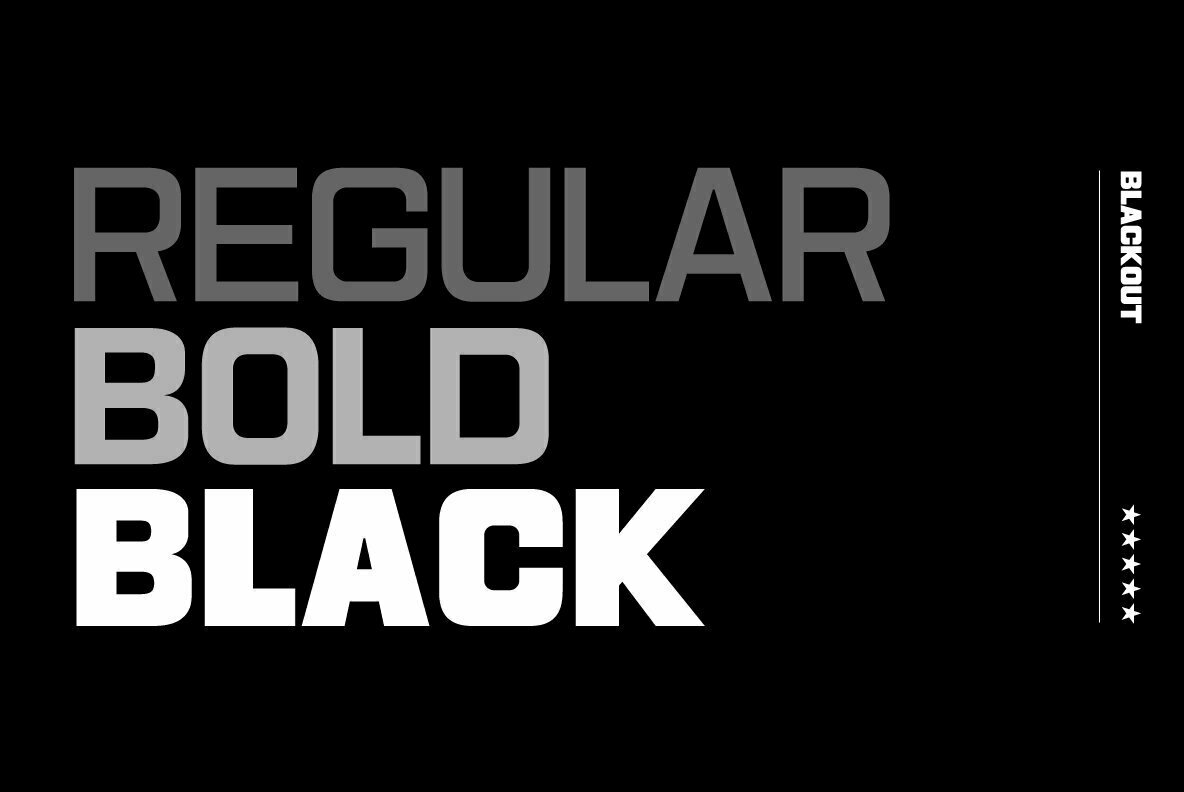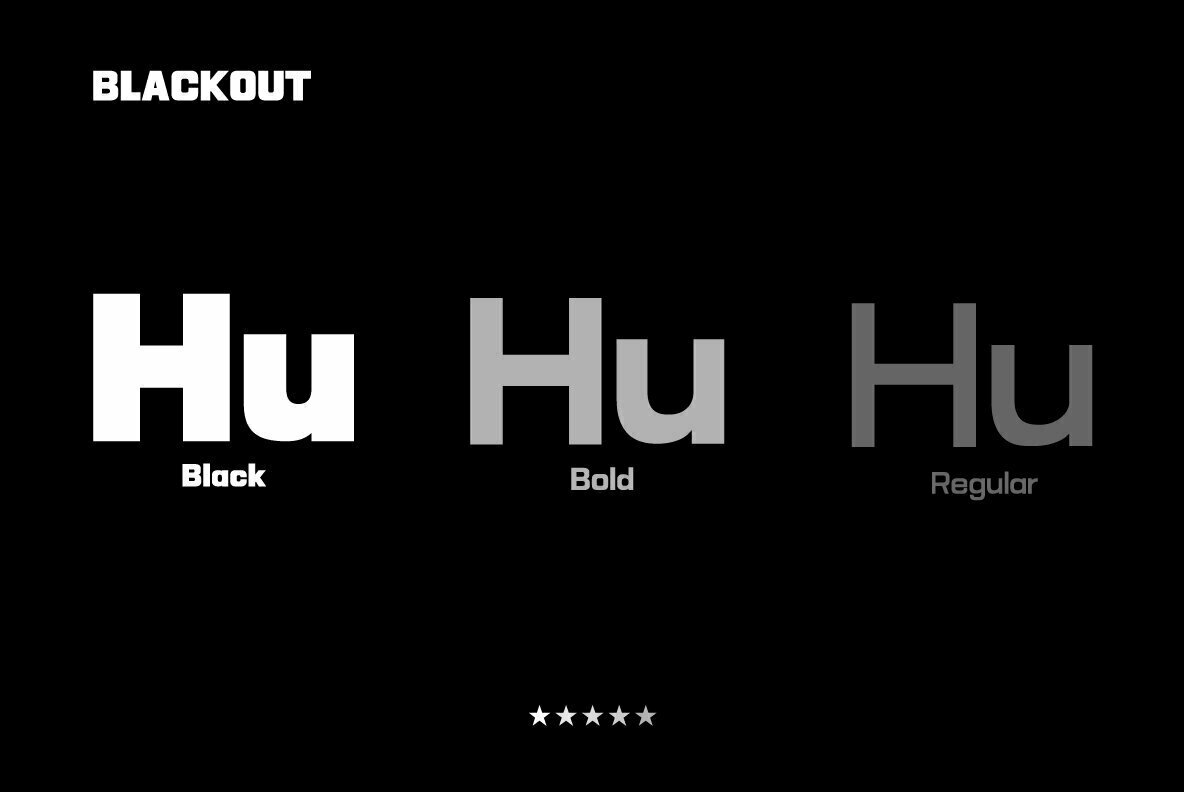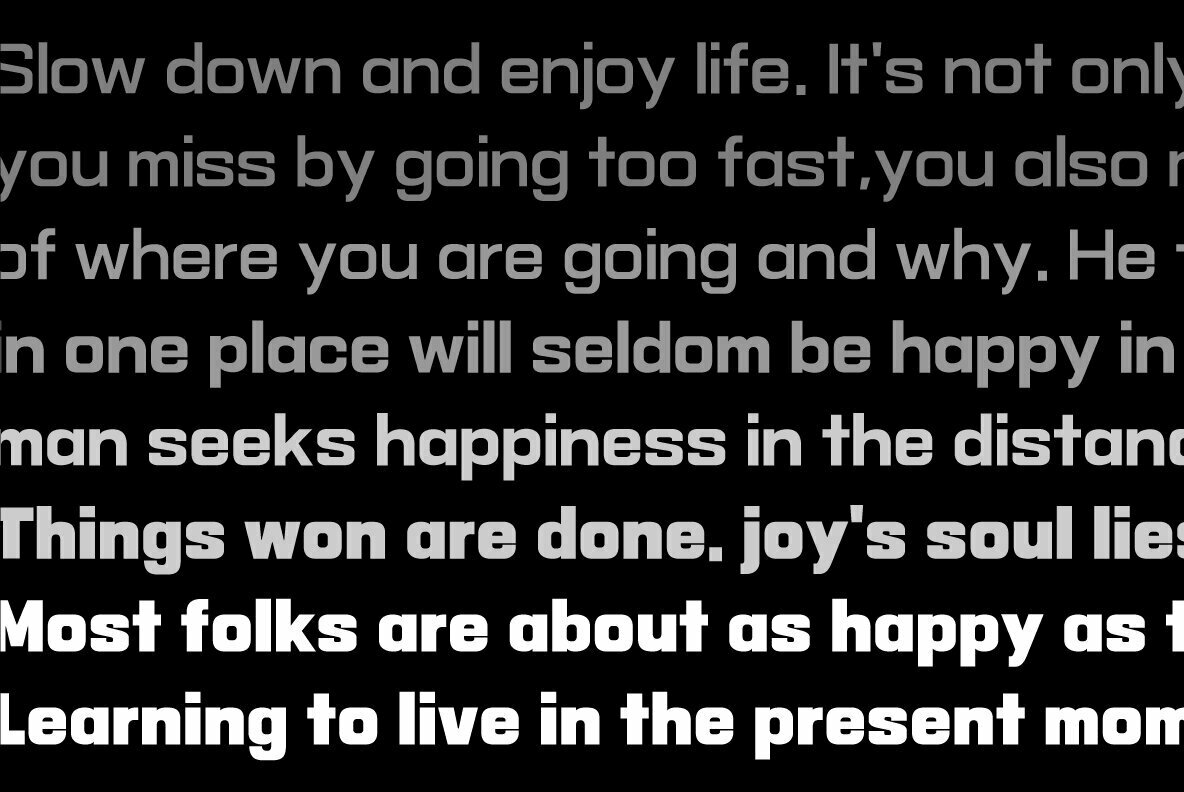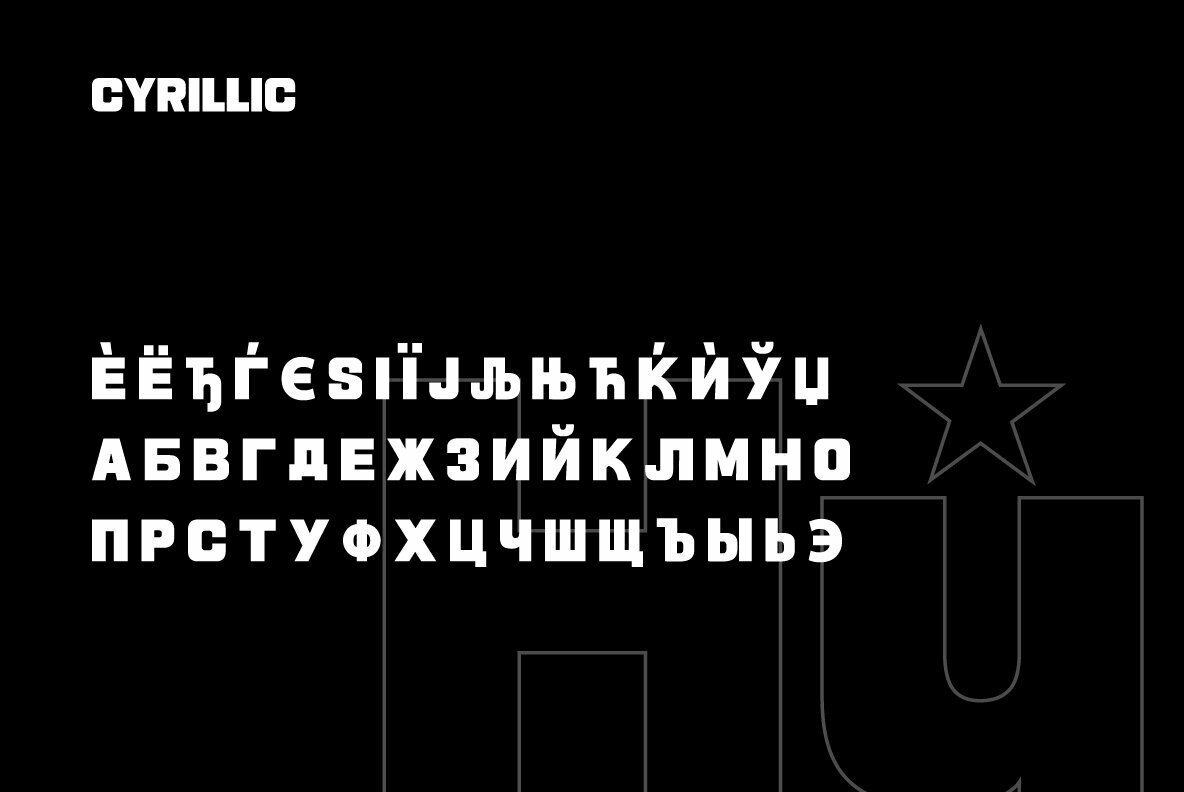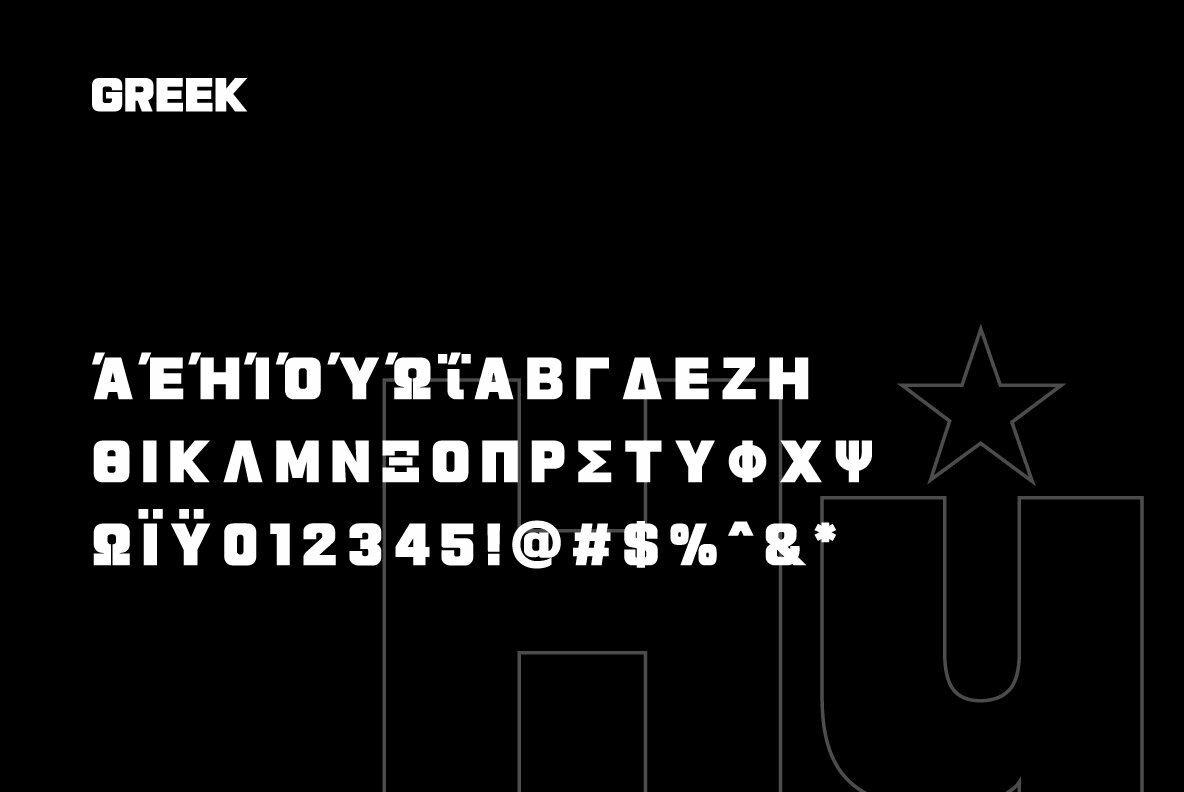
HU Blackout Font
HU Blackout is a typeface for titles that feels like letters are trapped in a square and has a constant and very narrow inner space. It is composed of three types of family typeface to increase usability.